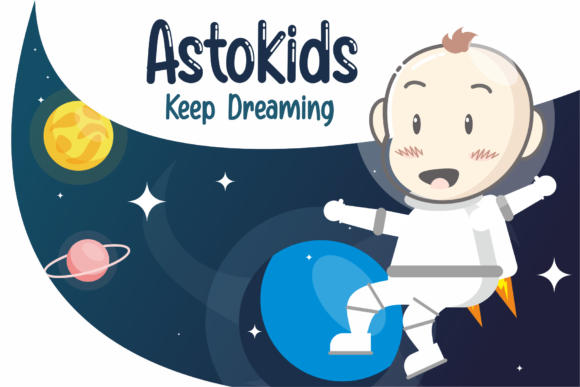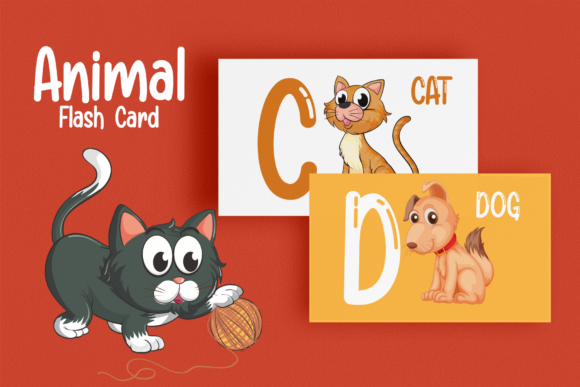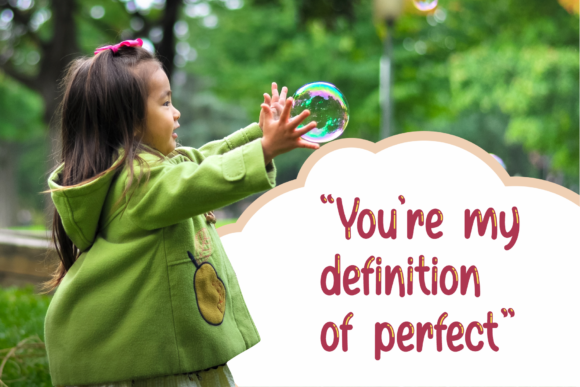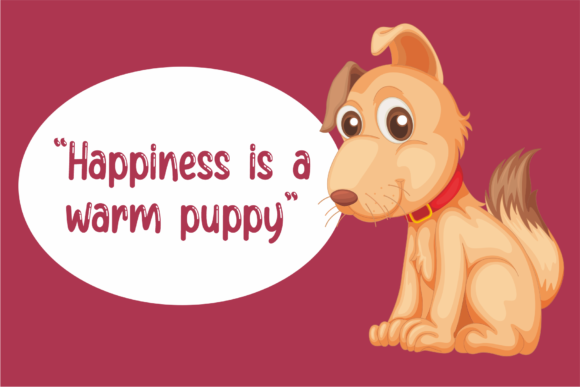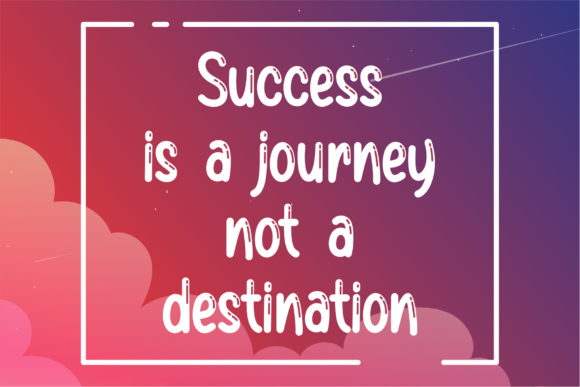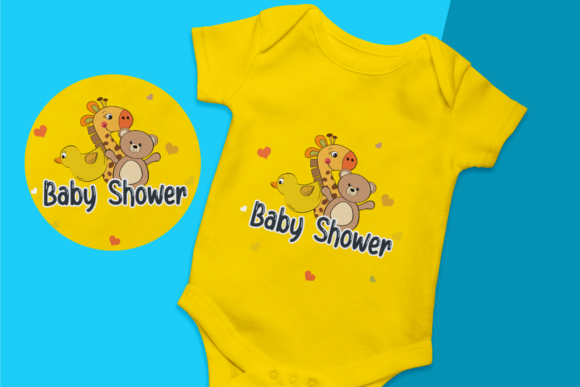
Baby Balloon Font: The Perfect Addition to Your Design Arsenal
In the world of typography, few fonts manage to capture the essence of fun, quirkiness, and authenticity as perfectly as the Baby Balloon font. This enchanting display font has been making waves in the design community, and for good reason. With its childlike playfulness and versatility, Baby Balloon is the ideal choice for designers and crafters looking to add a touch of whimsy to their projects.
The Charm of Baby Balloon
Baby Balloon embodies the carefree spirit of childhood, making it an instant attention-grabber. Its unique, inflated letterforms seem to bounce off the page, radiating a sense of joy and energy that’s impossible to ignore. Whether you’re working on a branding project, a craft tutorial, or a digital design, Baby Balloon is sure to bring a smile to your audience’s faces.
Key Features of Baby Balloon Font
- Unique Letterforms: Each letter in the Baby Balloon font is carefully crafted to resemble a miniature balloon, complete with subtle curves and rounded edges.
- Playful Texture: The font features a delightful texture that gives it a hand-crafted, organic feel.
- Versatile: Baby Balloon can be used for a wide range of projects, from digital designs and branding to crafting and DIY tutorials.
- Easy to Read: Despite its playful nature, Baby Balloon remains surprisingly legible, making it perfect for headlines, titles, and short paragraphs.
Design Inspiration with Baby Balloon
So, how can you use Baby Balloon to elevate your designs? Here are a few ideas to get you started:
- Party Invitations: Create eye-catching invitations for birthday parties, baby showers, or other celebrations with Baby Balloon as the star of the show.
- Branding and Packaging: Add a touch of whimsy to your brand’s identity with Baby Balloon, perfect for businesses that cater to families, children, or special occasions.
- Craft Tutorials: Use Baby Balloon to add a playful twist to your craft tutorials, sewing patterns, or DIY guides.
- Digital Designs: Incorporate Baby Balloon into your social media graphics, blog headers, or website designs to inject a dose of fun and personality.
Tips for Working with Baby Balloon
To get the most out of Baby Balloon, keep the following tips in mind:
- Experiment with Colors: Baby Balloon looks great in bold, bright colors, but don’t be afraid to try softer pastels or monochromatic schemes for a different effect.
- Mix and Match: Combine Baby Balloon with other fonts to create visual interest and add depth to your design.
- Play with Size: Use Baby Balloon in various sizes to create a sense of hierarchy and emphasis in your design.
In conclusion, Baby Balloon font is a versatile and charming addition to any designer’s arsenal. Its unique blend of fun, quirkiness, and authenticity makes it perfect for a wide range of projects, from digital designs and branding to crafting and DIY tutorials. With its childlike playfulness and ease of use, Baby Balloon is sure to bring a touch of magic to your creations. So why not give it a try and see how this enchanting font can elevate your designs?